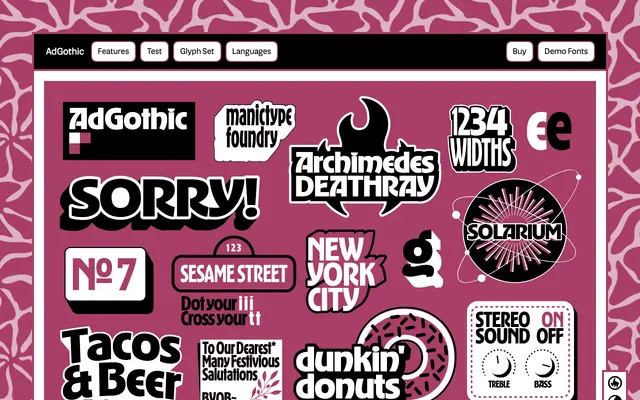
AdGothic
A contemporary revival of Robert Wiebking's 1917 Advertisers Gothic, extended across four widths with OpenType alternates and variable font support.
Jamie Chang's interpretation of Advertisers Gothic preserves the bold, high x-height character of the original while adding practical width variants from Regular through to Compressed. Stylistic sets offer alternate forms for the tittle, A, e, t and hmn letterforms, giving designers meaningful control over the typeface's personality. A variable font is available on request, making it flexible for motion and screen applications.
A bold, high x-height grotesque sans derived from Advertisers Gothic, a classic American advertising typeface from 1917, with condensed and compressed widths suited to display and headline use.